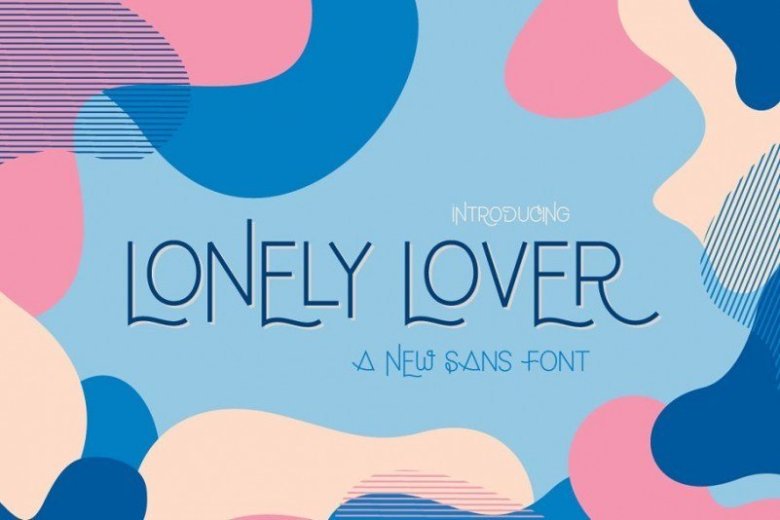
Lonely Lover Sans Font
Introducing Lonely Lover Font. It is designed by Salt & Pepper Designs, this is a premium font, are sold on creativemarket, but it was great, it is free today for download. Lonely Lover is a brand new, playful font from Salt and Pepper Designs.
Featuring a swirly, unique uppercase and a modern sans lowercase. Mixing and matching the two can help you achieve fancy words time and time again! Enjoy!